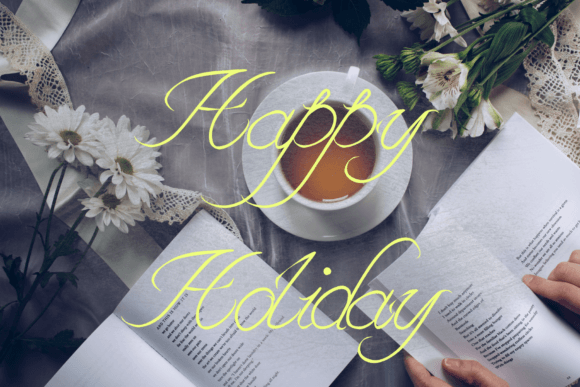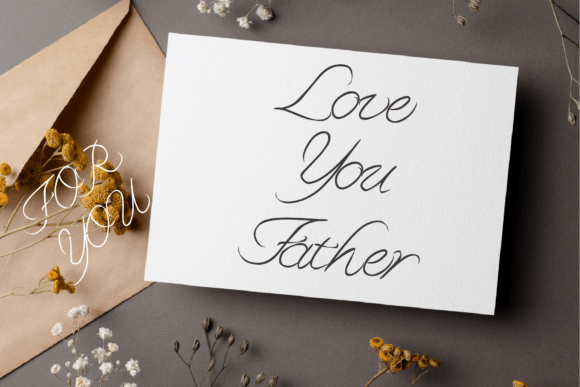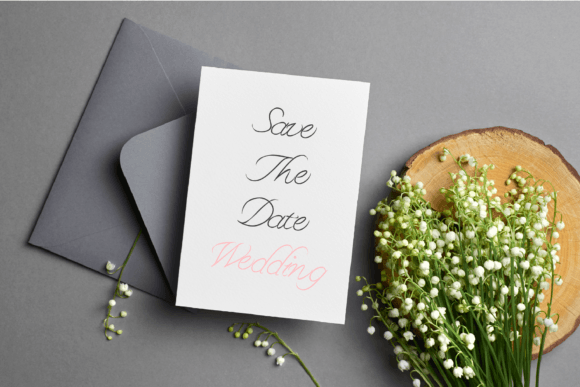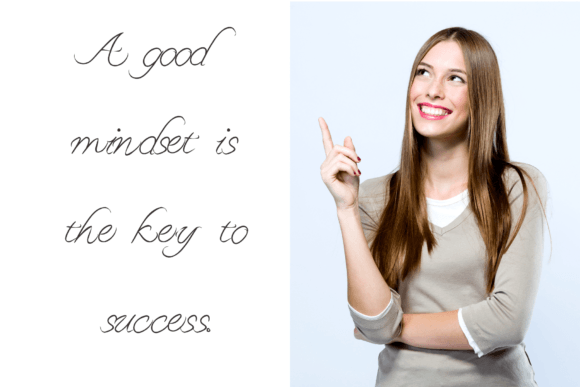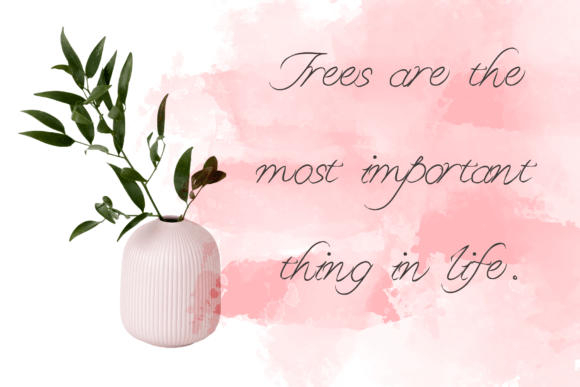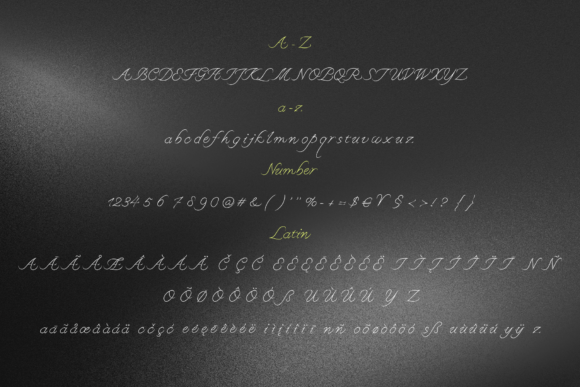
The Elegance of Graceful Font: A Designer’s Delight
I still remember the time I was working on a wedding invitation project, and my client asked for a font that exuded elegance and sophistication. I scoured the internet, tried out numerous fonts, but none seemed to fit the bill. That was until I stumbled upon the Graceful Font – a stylish and incredibly elegant script font that instantly became my go-to choice. In this article, I’ll share my experience with Graceful Font, its features, and how to make the most of it in your designs.
An Honest Review of Graceful Font
- ✨ Elegant and sophisticated design, perfect for wedding invitations, thank you cards, and quotes
- 💫 Beautifully crafted to add a handwritten touch to any design
- 🎨 Versatile and can be used for a variety of design projects, including logos, business cards, and greeting cards
While Graceful Font is an excellent choice, there are a few things to keep in mind:
- ⚠️ May not be suitable for body text or long paragraphs, as it’s a script font and can be challenging to read in large quantities
- 🤔 Limited availability of certain characters or glyphs, but this can be overcome by using OpenType features
The Backstory of Graceful Font
The story behind Graceful Font is one of passion and dedication. The designer, inspired by the beauty of handwritten scripts, spent countless hours crafting a font that would bring elegance and sophistication to any design. With a keen eye for detail and a deep understanding of typography, the designer created a font that is both beautiful and functional.
Q: What is the best way to use Graceful Font in my designs?
A: The best way to use Graceful Font is to pair it with a simple background or texture, allowing the font to take center stage. You can also experiment with different colors and styles to create a unique look.
Q: Is Graceful Font suitable for body text?
A: While Graceful Font is a beautiful font, it’s not ideal for body text. Script fonts can be challenging to read in large quantities, so it’s best to use it for headings, titles, or short paragraphs.